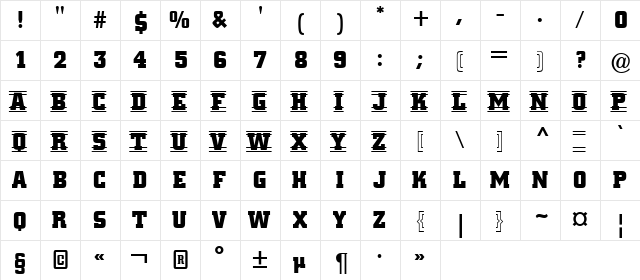
a_CityNovaTtD4StrCmb Regular
Design Context for a_CityNovaTtD4StrCmb Typeface
a_CityNovaTtD4StrCmb takes a measured approach to typography — its balanced proportions and neutral character make it a reliable workhorse for both digital and print work.